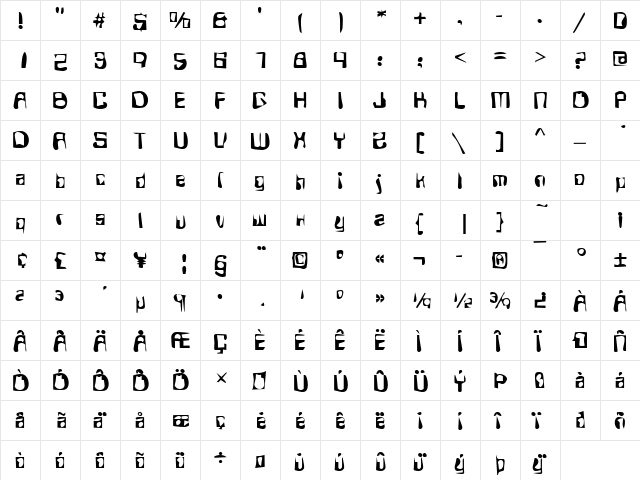
DTCDirtyM11 Regular
Design Context for DTCDirtyM11 Typeface
DTCDirtyM11 is a composed and adaptable typeface that performs quietly and consistently across a wide range of design contexts.